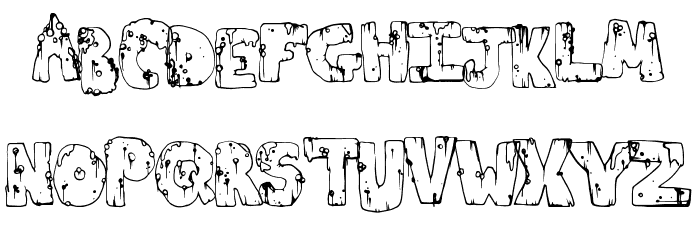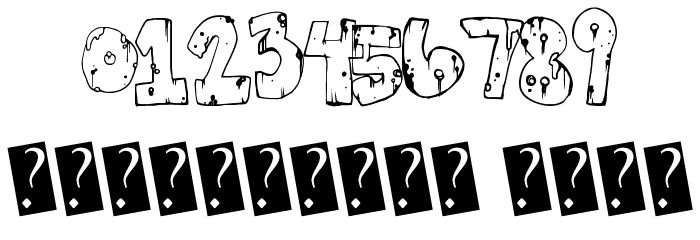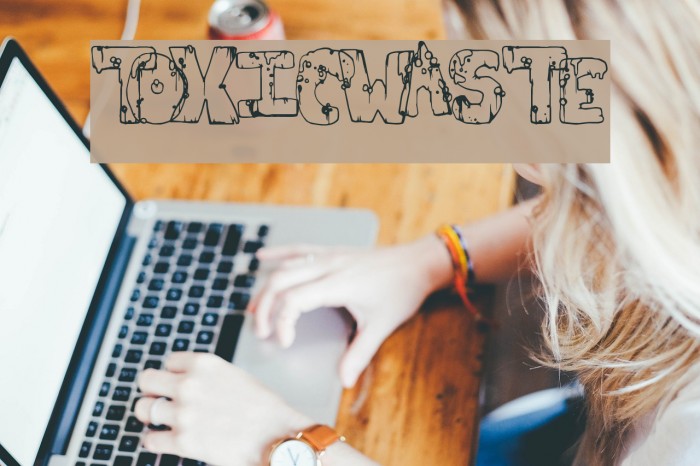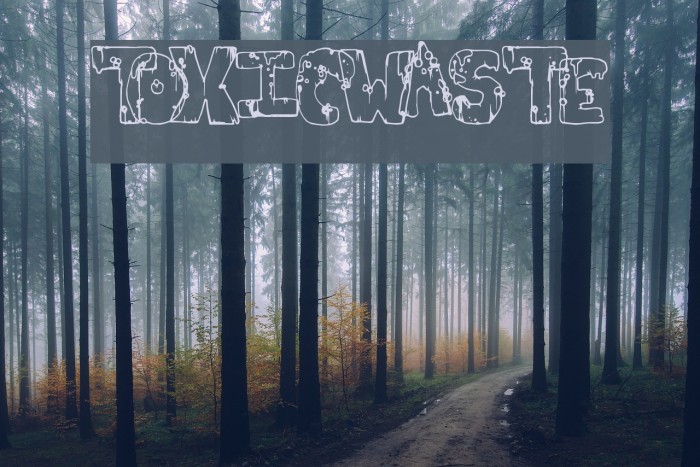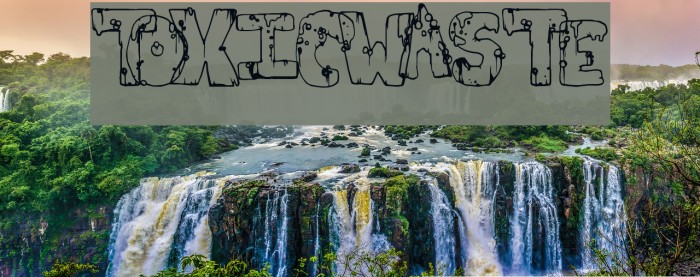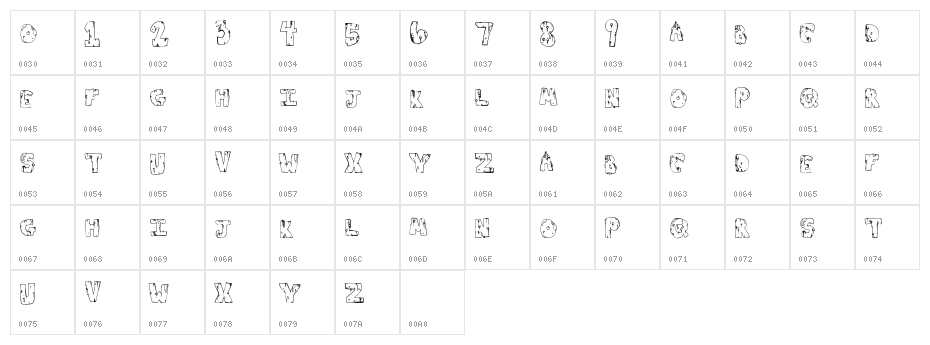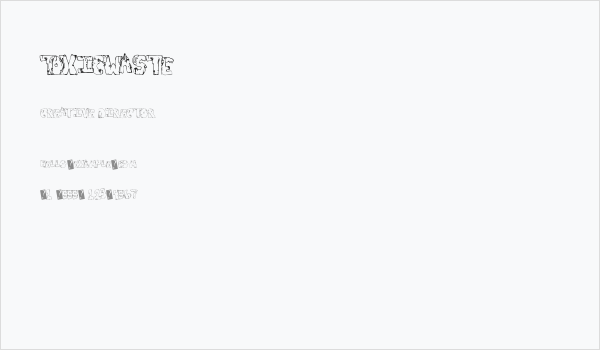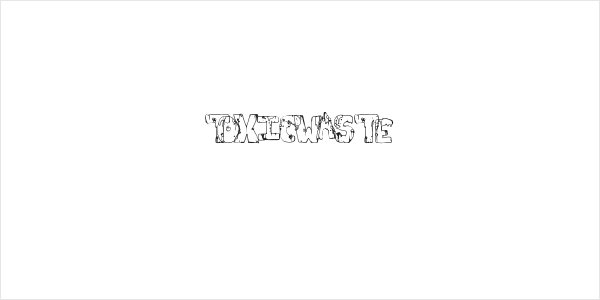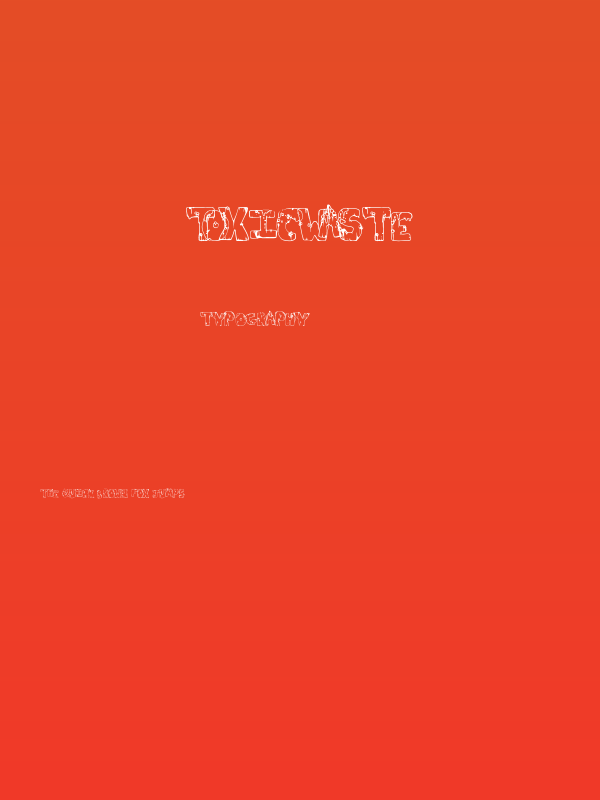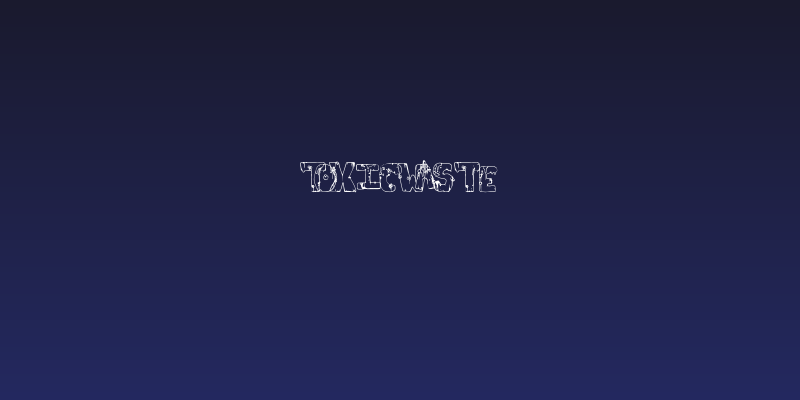
ToxicWaste Font
This font features a playful and chaotic design, reminiscent of dripping or melting substances, which gives it a unique and eye-catching appearance. The characters are bold and chunky, with irregular edges and splatters that suggest a sense of decay or corrosion. This style is particularly effective for creating a sense of unease or excitement, making it ideal for themes related to horror, science fiction, or anything that requires a dramatic and unconventional look. The font maintains a consistent weight throughout, ensuring readability despite its decorative elements.
A bold, chaotic font with a dripping, corroded appearance.
- Proposed Projects: Ideal for Halloween-themed projects, horror movie posters, science fiction book covers, or any design requiring a dramatic and unconventional look.
- Use Case: Headlines, Posters, Logos